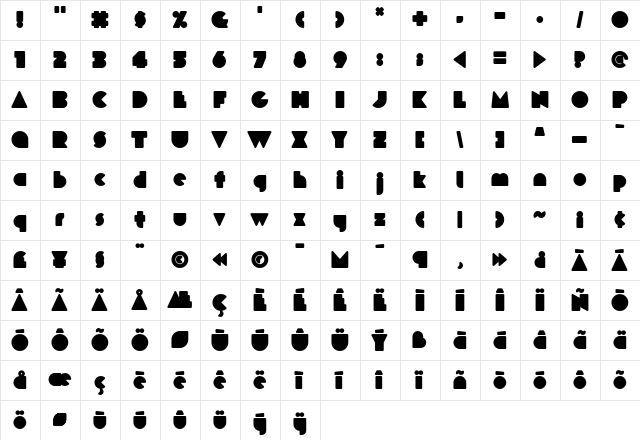
Milford Regular
Design Context for Milford Typeface
Milford is a composed and adaptable typeface that performs quietly and consistently across a wide range of design contexts.